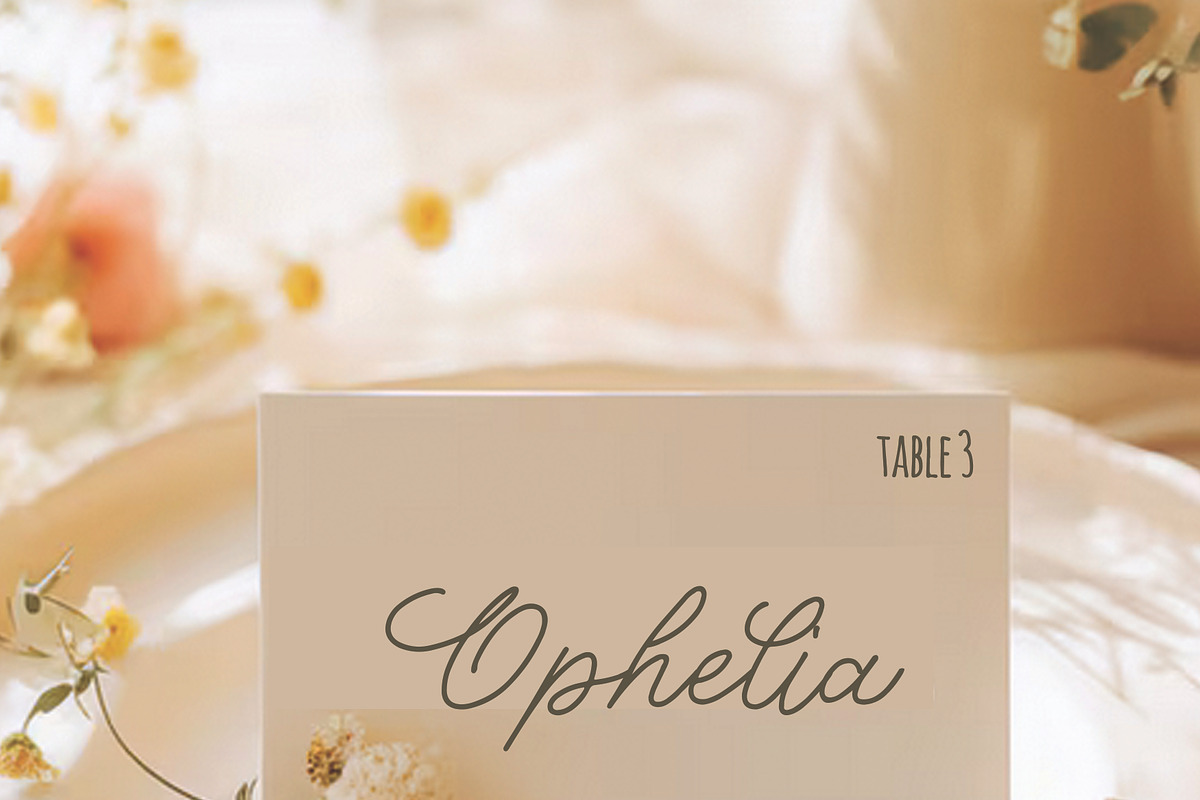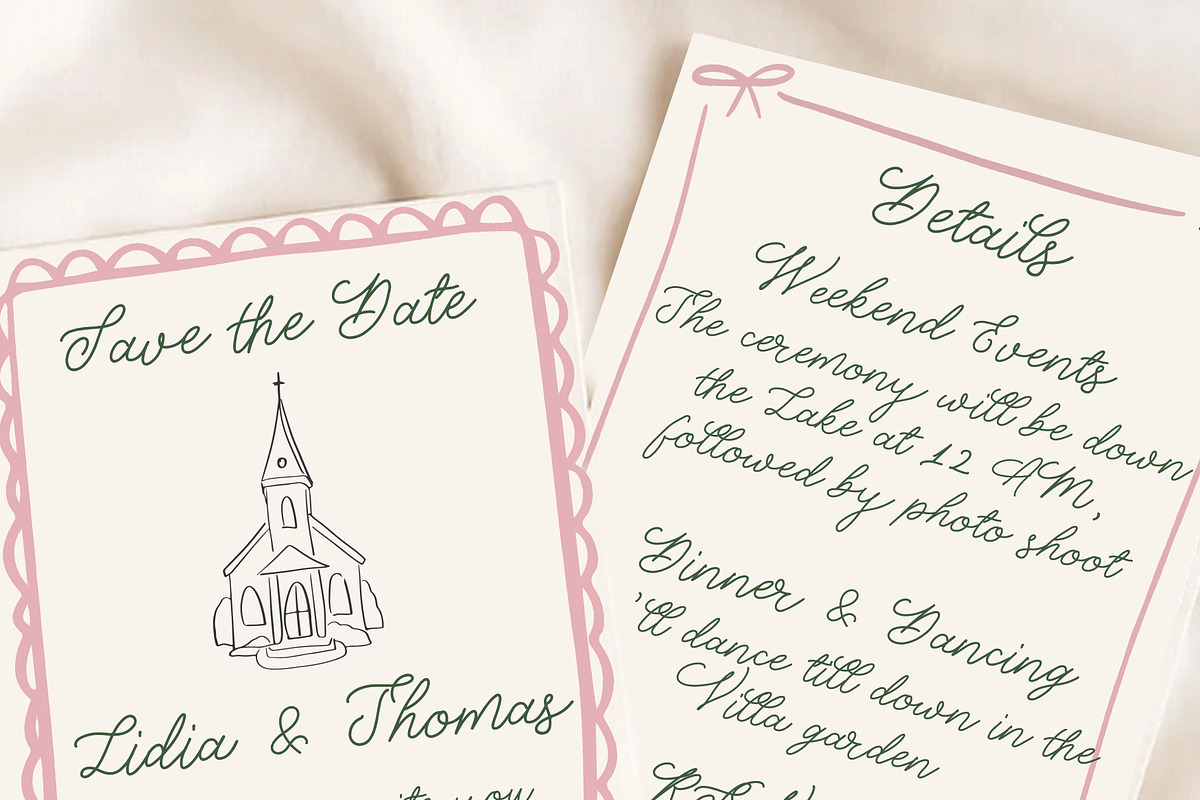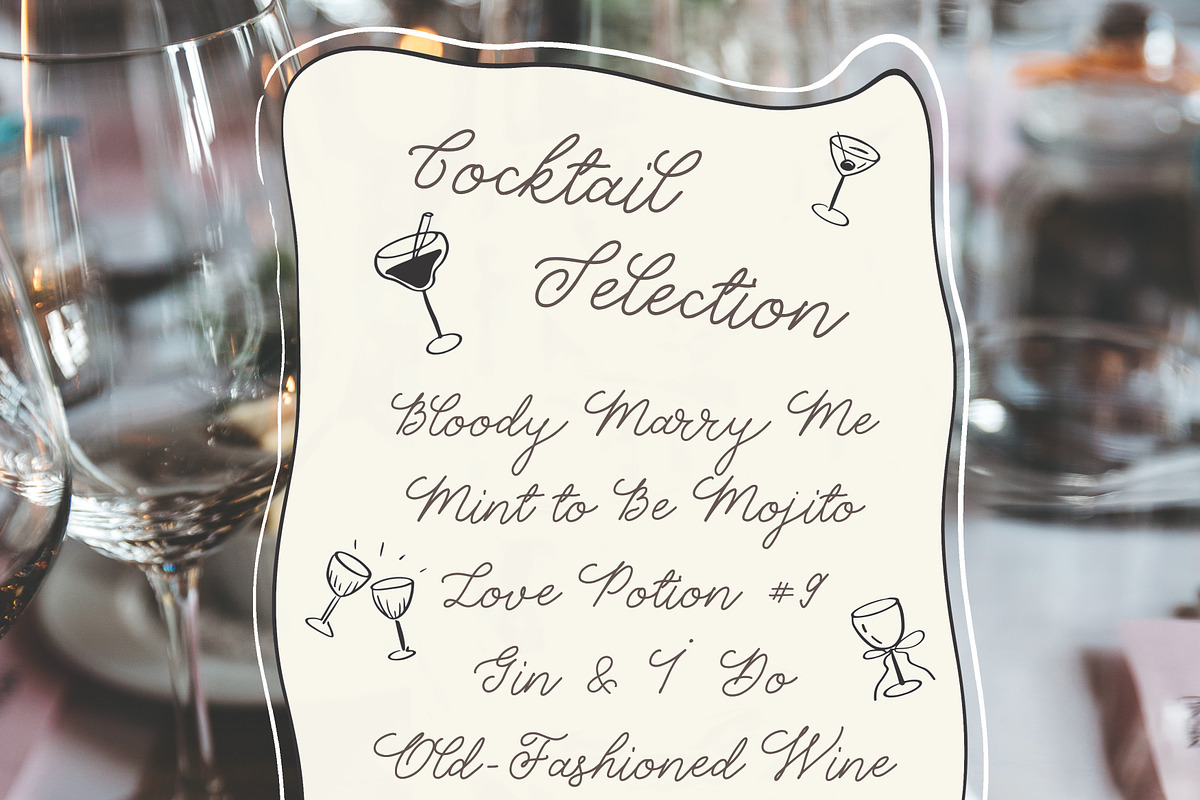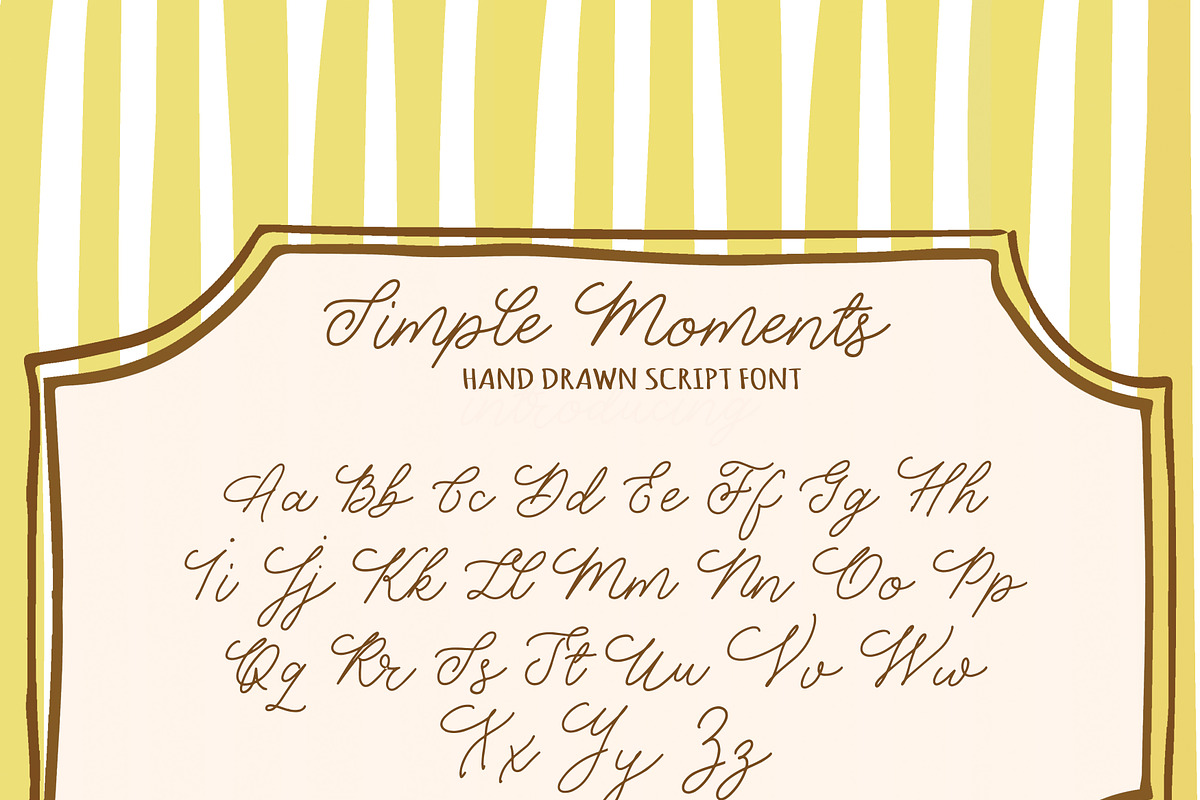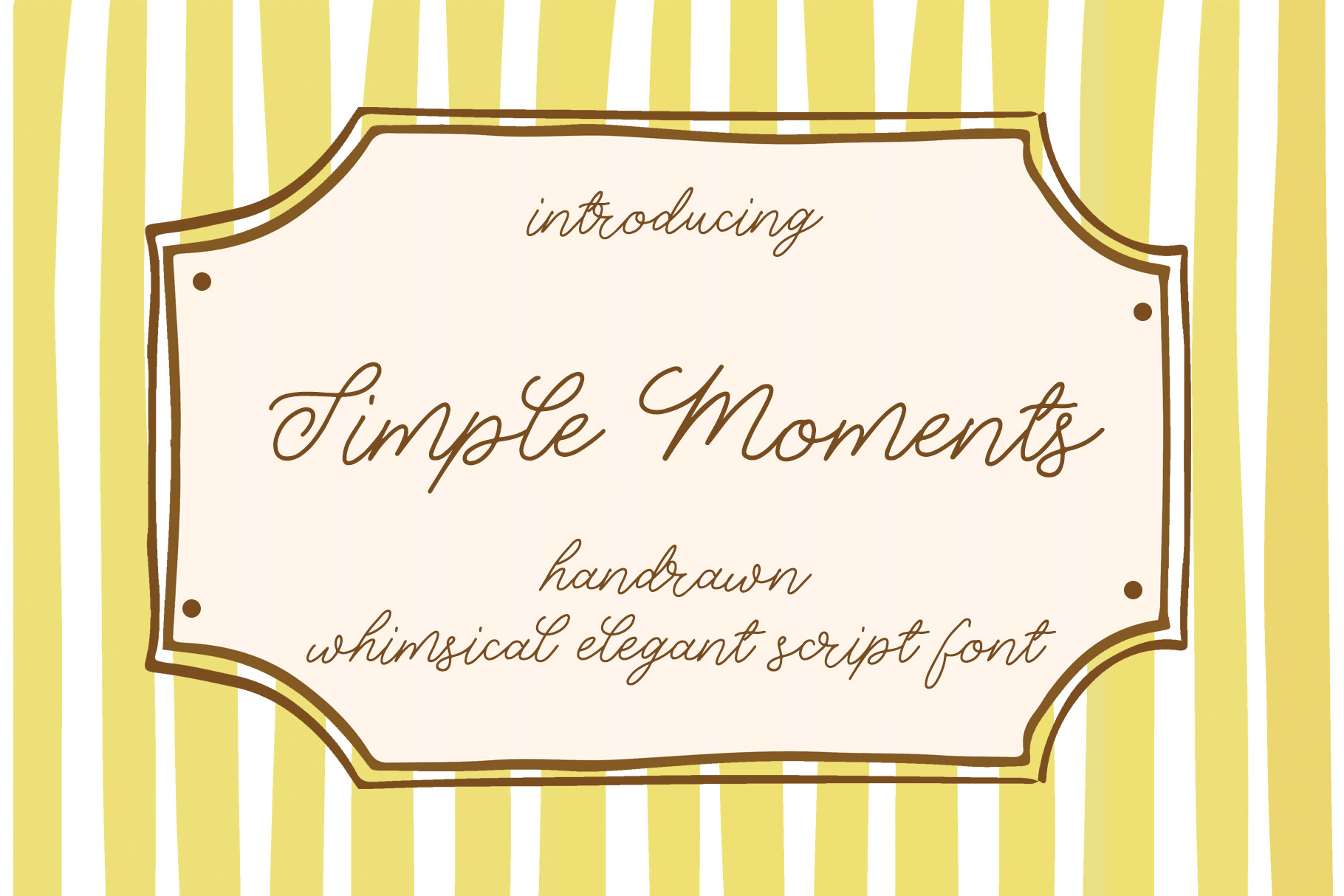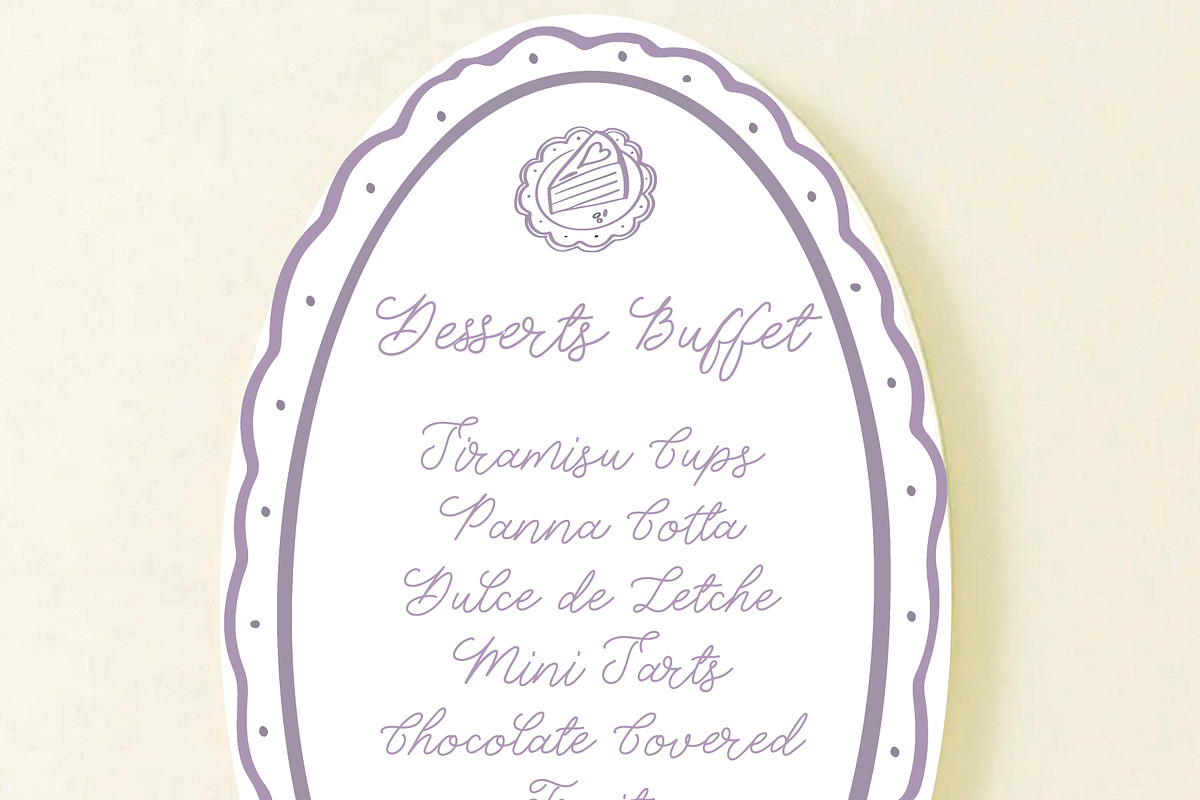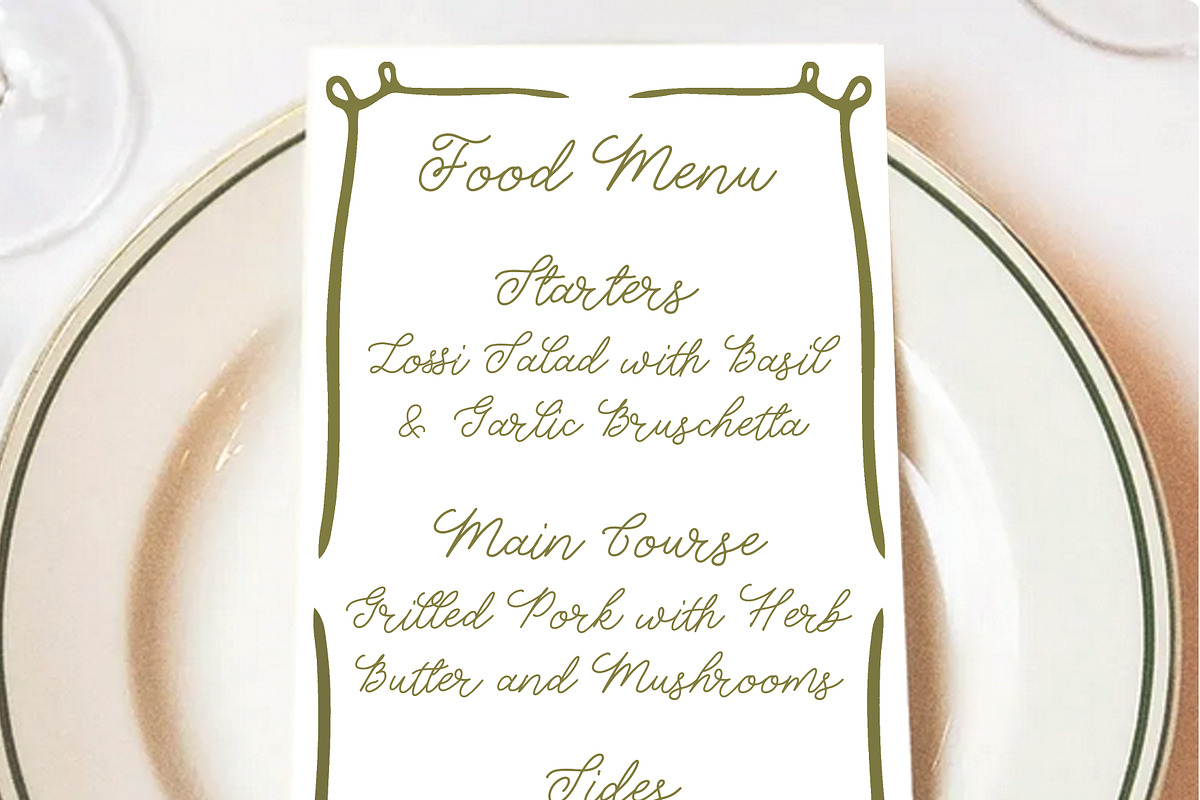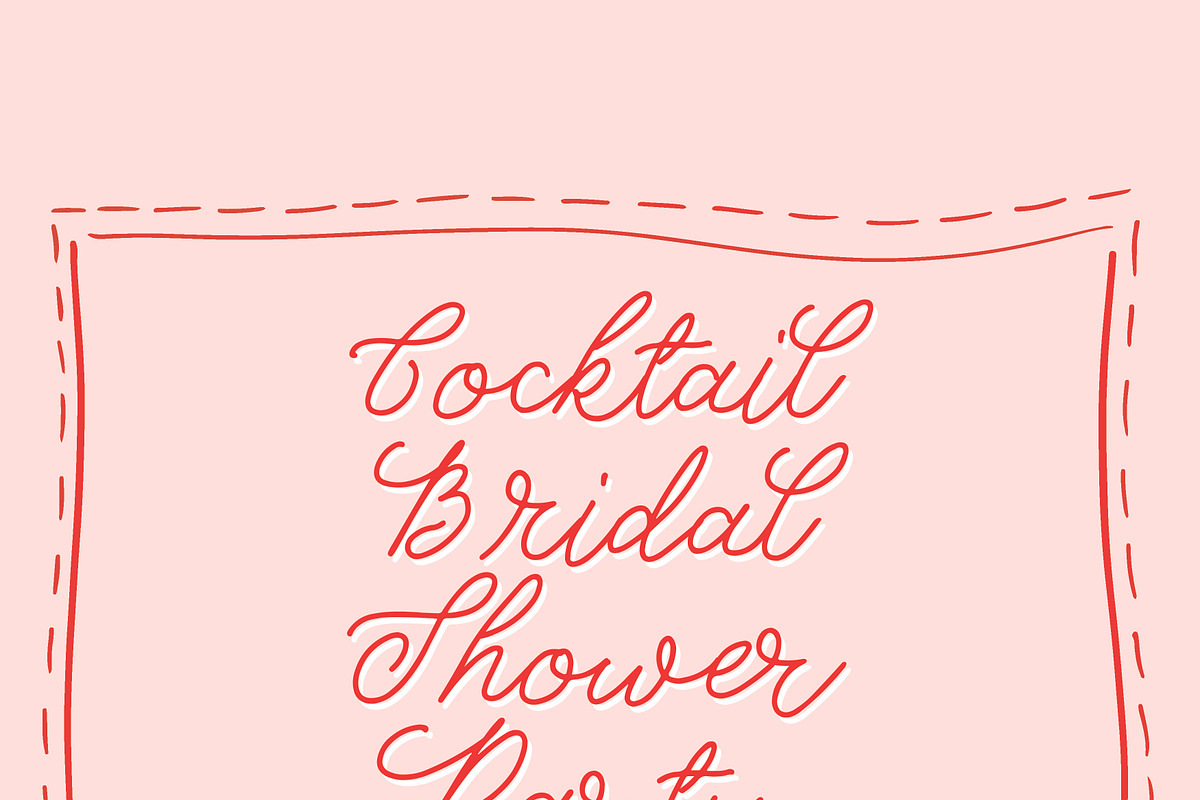
Whimsical Wedding Invitation Font
Simple Moments Handwritten Font for Whimsical Wedding Invitations, Whimsy Script Font, Quirky Wedding Font for Canva, Whimsical Font
Simple Moments is a handwritten font just perfect for handwritten wedding invites, menus, branding, social media and so on. This font is completely hand-drawn to perfectly re-create natural handwriting, with an organic, natural look like taken out of grandma’s recipe notebook.